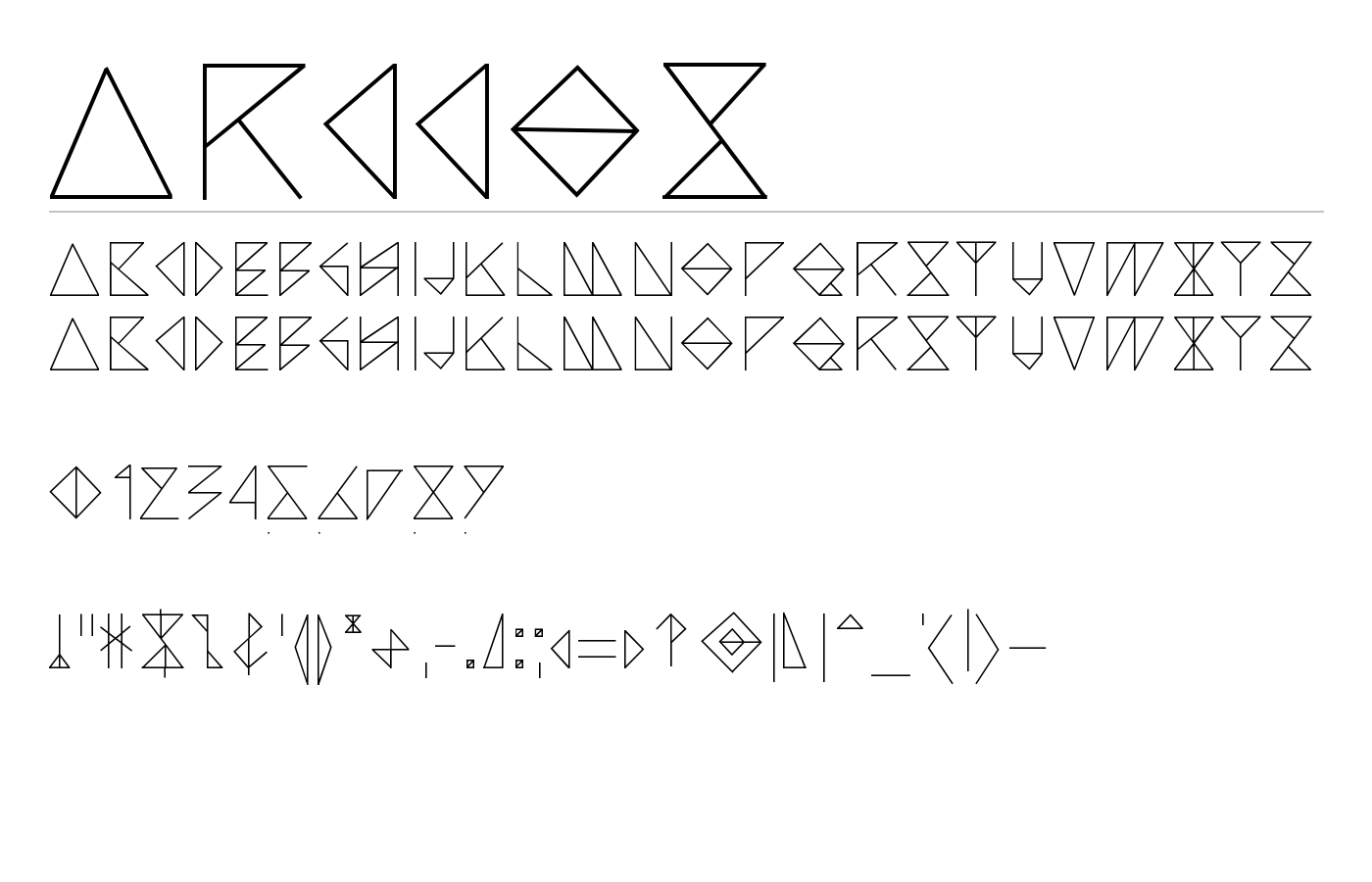
Arccos is a unique geometric sans serif font characterized by its thin, angular lines and triangular shapes that create a futuristic and abstract style. Its light weight, narrow structure, and high contrast between sharp angles give it a modern, tech-inspired personality ideal for creative logos, digital interfaces, and projects that seek a distinctive, avant-garde look. This font works best in headline or display settings where its striking, unconventional letterforms can stand out and capture attention.
Arccos Font
About Arccos Font